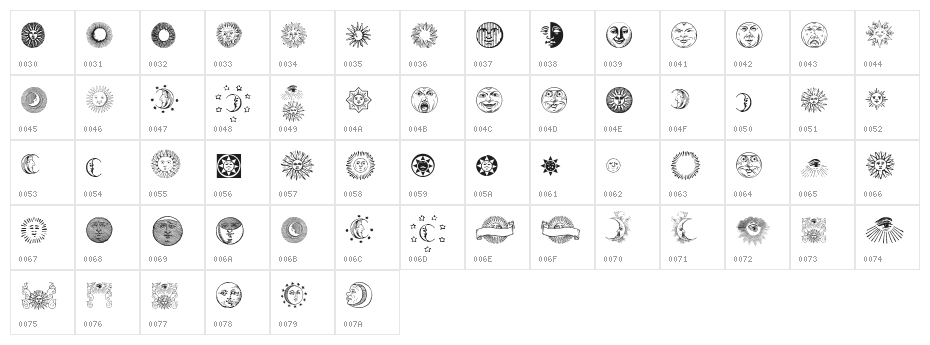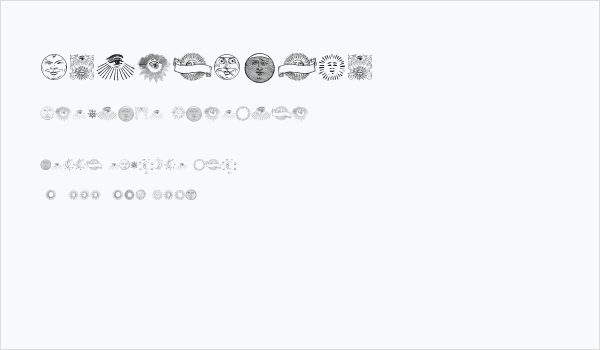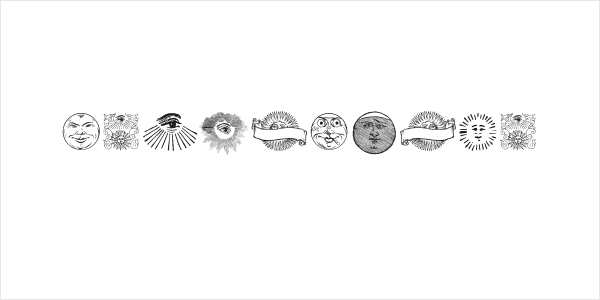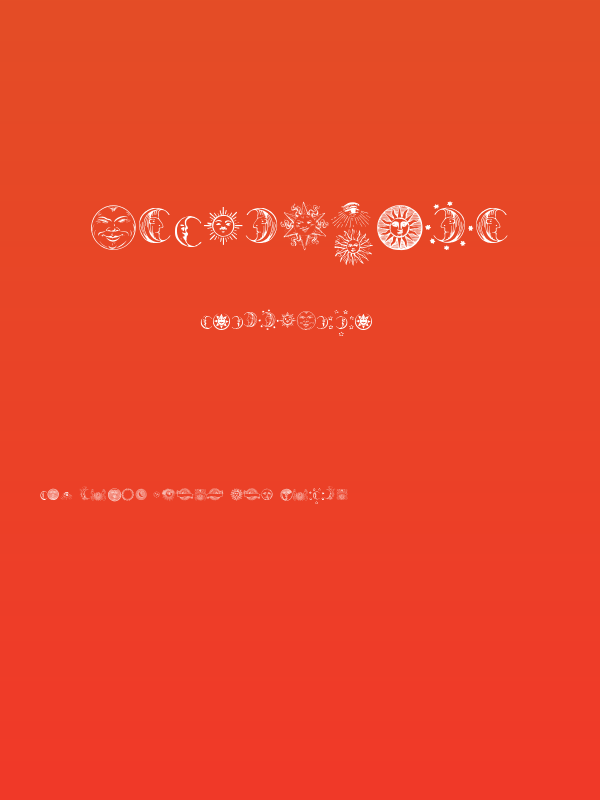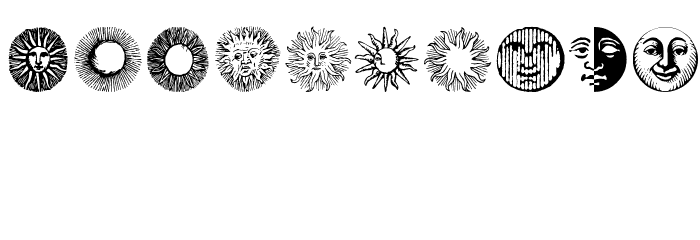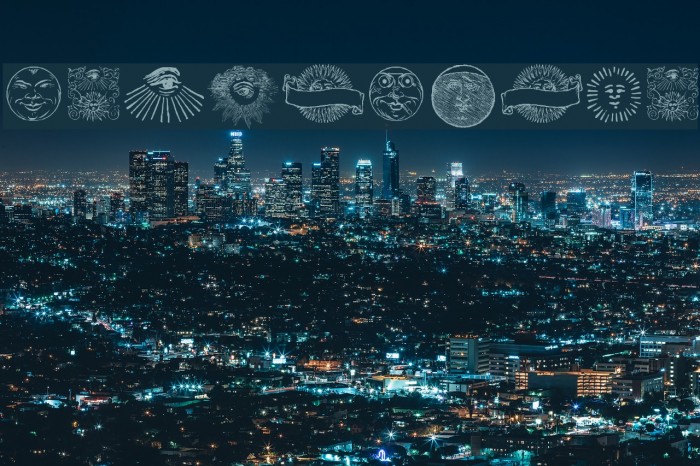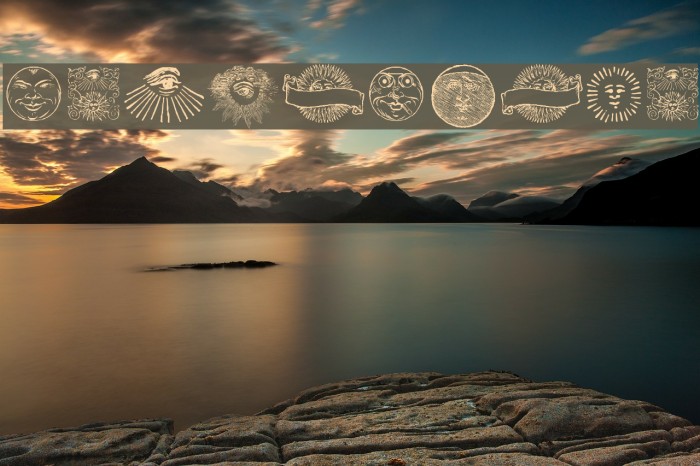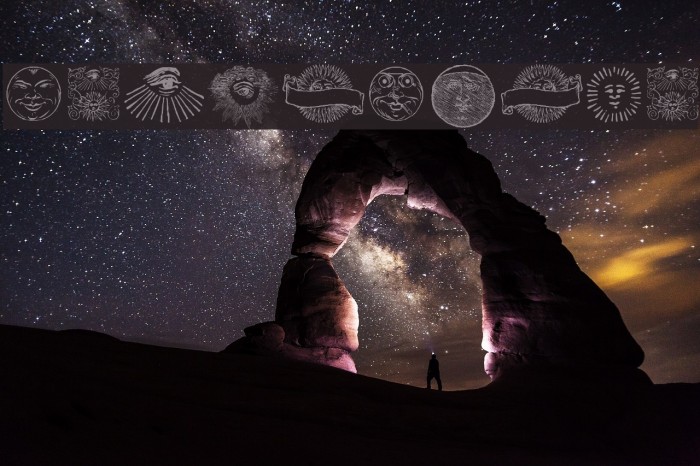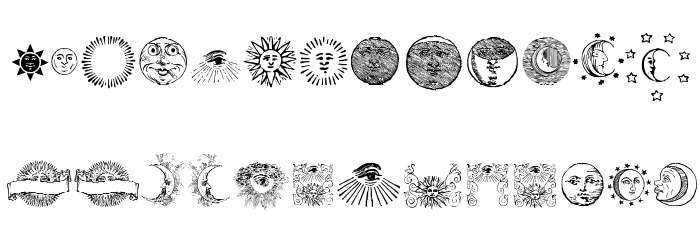
Astrodings Font
Astrodings Description
A decorative dingbat set featuring a variety of celestial illustrations, including suns, moons, stars, and faces, rendered in a vintage, hand-drawn style with intricate line work and ornamental details.
| Overall Style | Vintage, Decorative, Mystical |
| Use Case | Logos, Decorative elements, Posters, Invitations |
| Proposed Projects | Astrology posters, tarot cards, mystical branding, decorative borders, event invitations, scrapbooking, and social media graphics. |